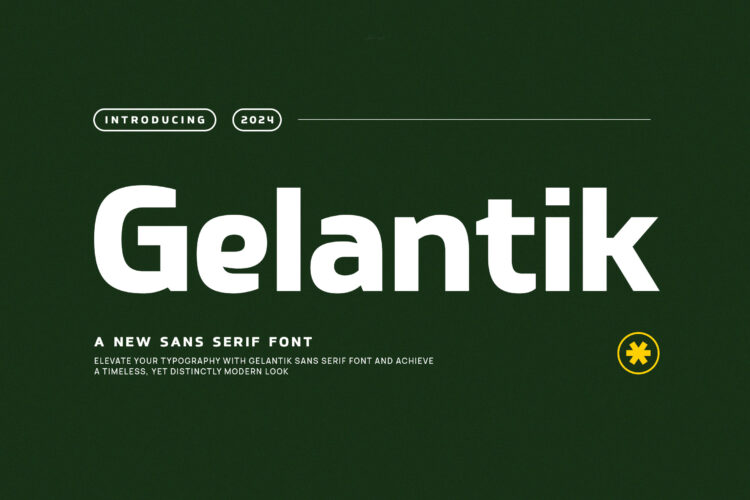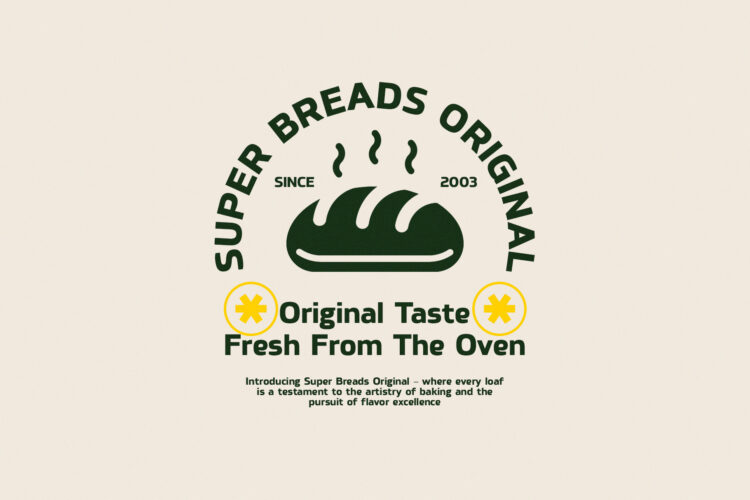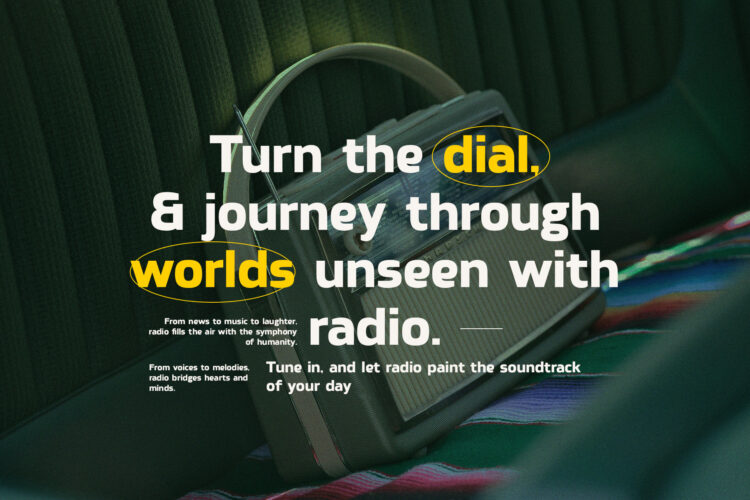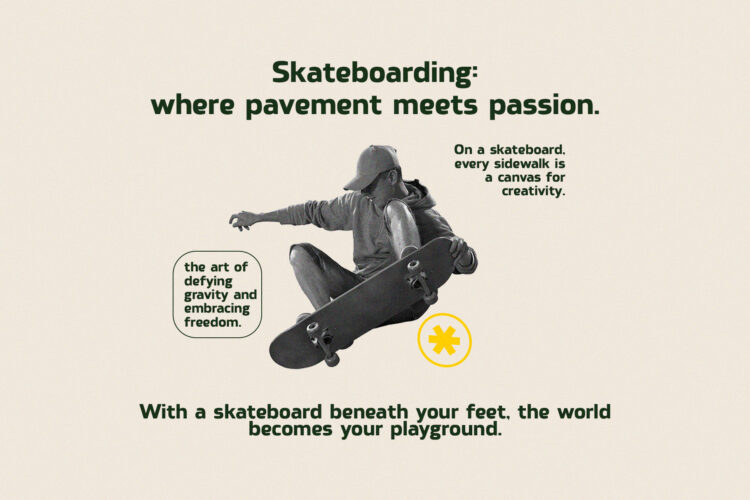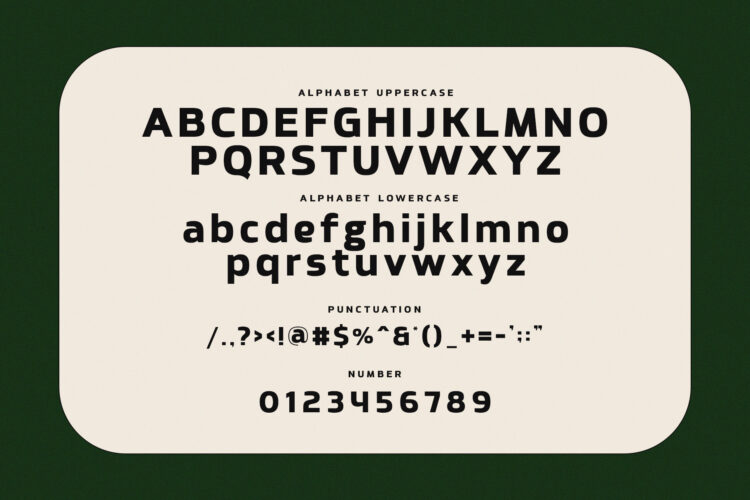
Introducing Gelantik – Modern Bold Sans Serif.
Gelantik is a modern and simple font, best used as a display for headings, logos, branding, magazines, product packaging and invitations.